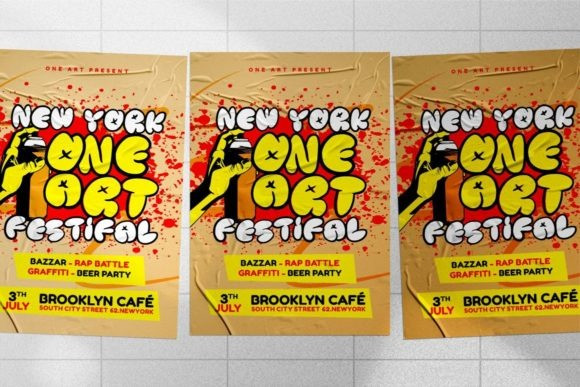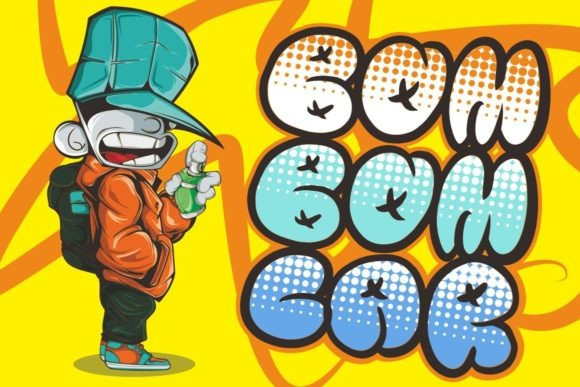
Street Explorer Font
Street Explorer Display Font is a Graffiti-Style Font inspired by the graffiti art on the city streets. It will make it easier for you to make graffiti writing or designs, and its ligatures will make your design look even cooler. Suitable for many design projects like branding, packaging, logo, wall art, headline, template, banner, poster, etc.